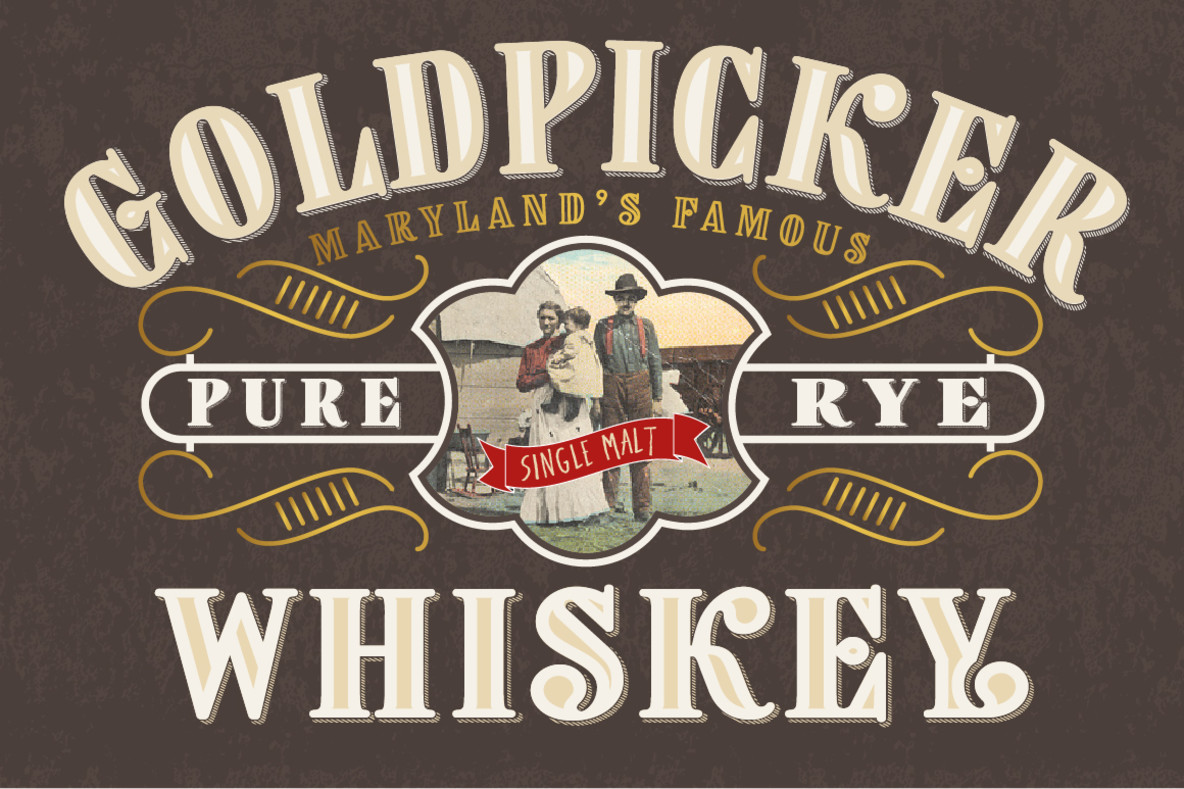
Goldpicker Font
Goldpicker is a vintage retro styled typeface with a western look and feel. It refers to the American wood block type of the previous century. Goldpicker is very useful for covers, poster, labels, t shirt and logo’s.
Each font comes with a set of Alternatives for characters C G Q S V W & and a set for endings for the characters A C E K L M N O R V W X Y Z. You can access the special characters using the Opentype options or the glyph panel.